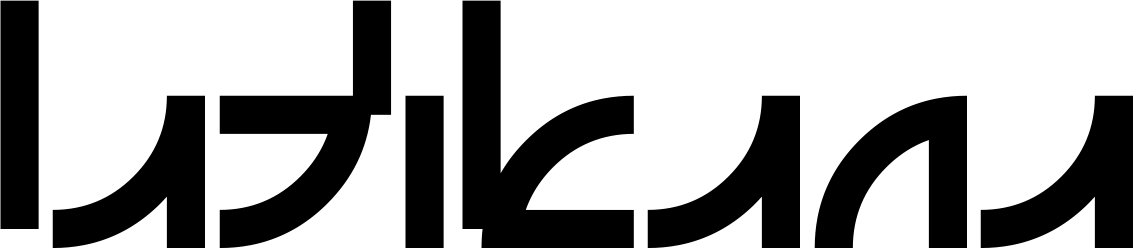
Latikana Font
Go with a Japanese font to inspire everyone around. Latikana comes with almost short letters and can be fit for logos, apparel, posters, and so forth. Due to this case is not that legible, you can challenge your customer…
Go with a Japanese font to inspire everyone around. Latikana comes with almost short letters and can be fit for logos, apparel, posters, and so forth. Due to this case is not that legible, you can challenge your customers with your passages. Hit the download button right now and see how the outcomes impress your clients.
Learning japanese has never been easier with Latikana – a bamboo typeface that you can read instantly*.
Comes with considerable amount of diacritics and contextual alternates.
(*some concentration may be required)